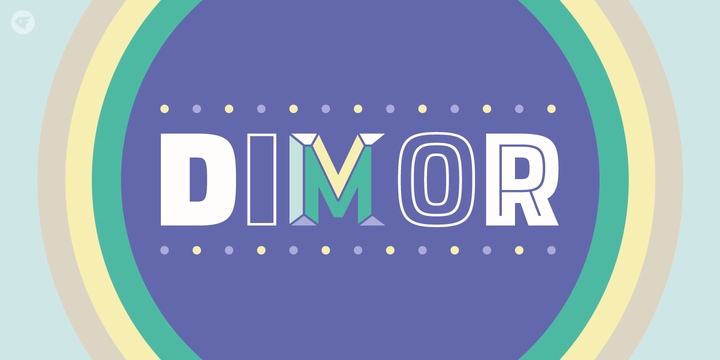
Dimor Font
This versatile typeface is perfect for contemporary business branding, professional service companies, modern corporate identities, clean marketing materials, executive presentations, financial documentation, consulting firm logos, and sophisticated digital communications. Dimor Font delivers refined professionalism in applications where business credibility and modern sophistication are essential for establishing trust with discerning clients and professional audiences seeking reliable expertise.
What makes Dimor Font so exciting is its masterful balance of corporate authority and approachable elegance through contemporary typography. The font features carefully proportioned letterforms with subtle refinements that convey competence and trustworthiness without appearing cold or impersonal. Each character has been precisely engineered to ensure optimal performance across boardroom presentations and client-facing materials while maintaining distinctive personality. The typeface's professional character creates immediate associations with business excellence and reliable service, making it perfect for companies that need to communicate expertise and dependability through their visual identity.
The Dimor Font includes professional weight variations: Light, Regular, Medium, and Bold versions. This business collection provides designers with essential tools to create clear corporate hierarchies and maintain consistent brand presentation across professional applications. Each weight preserves the font's inherent sophistication while offering distinct emphasis levels for various business communication needs and executive design contexts.
This distinguished professional typeface represents the perfect solution for designers who understand the importance of contemporary business typography in creating credible, sophisticated corporate communication that builds lasting client relationships.